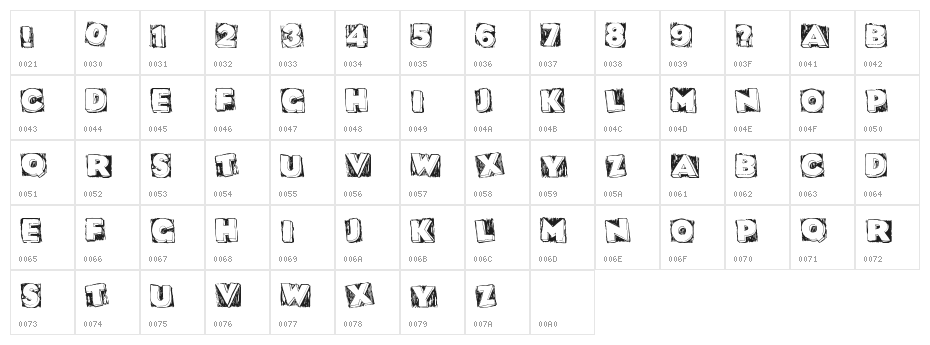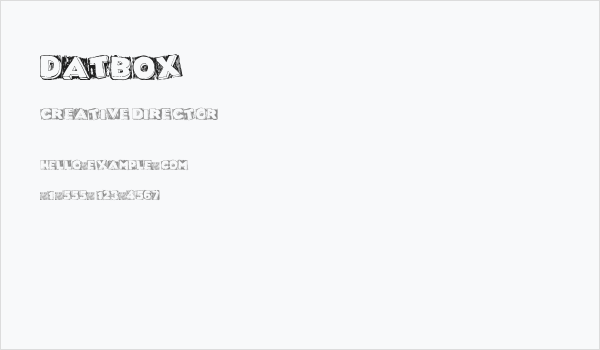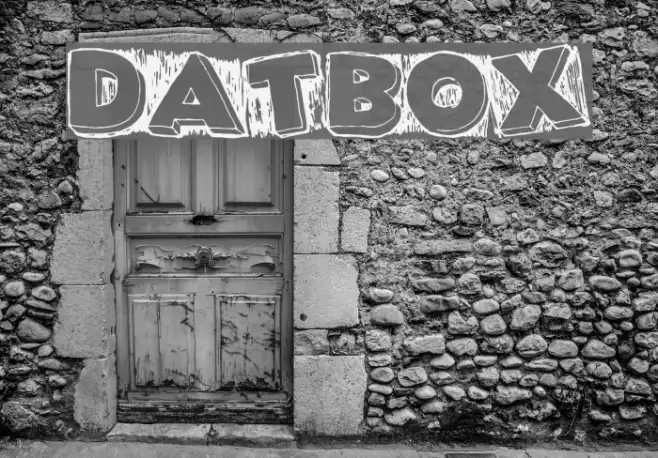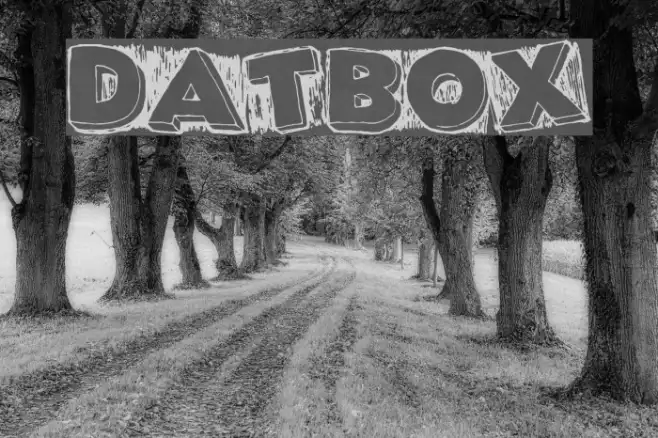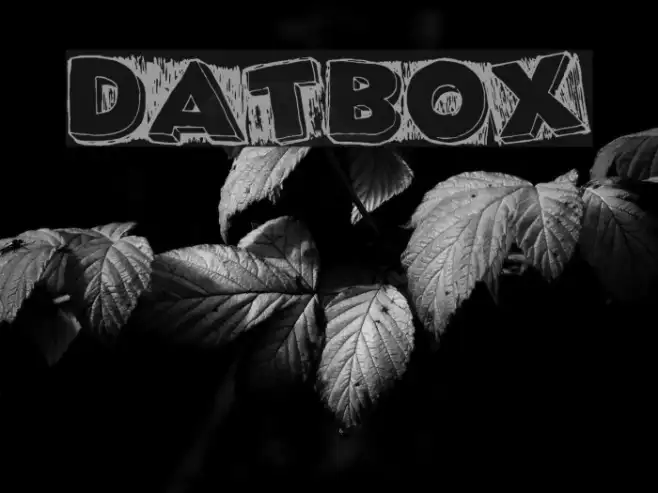
DatBox Font
DatBox Description
This font features a bold, hand-drawn style with a playful and artistic flair. Each character is outlined with a thick, uneven stroke, giving it a sketch-like appearance. The letters are uppercase and have a three-dimensional look, as if they are popping out of the page. The numbers and special characters follow the same design, maintaining consistency throughout the set. The font has a dynamic and energetic feel, making it suitable for creative and informal projects. Its unique style captures attention and adds a touch of whimsy to any design.
| Overall Style | Playful, Artistic |
| Proposed Projects | Ideal for comic books, children's book covers, playful posters, and creative branding. |